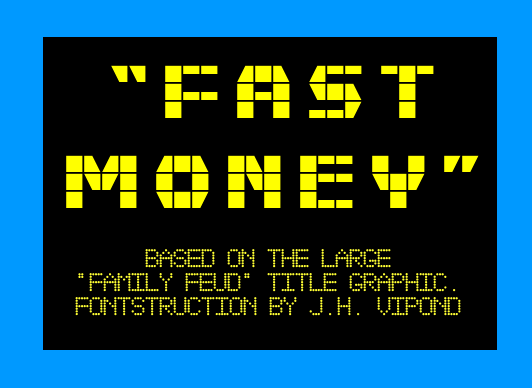
Font name: | Fast Money |
Author: | James Vipond |
Note by James Vipond | |
I changed a few characters after seeing the "Family Feud at Opryland" sign on the U.S. Game Shows Wiki. |